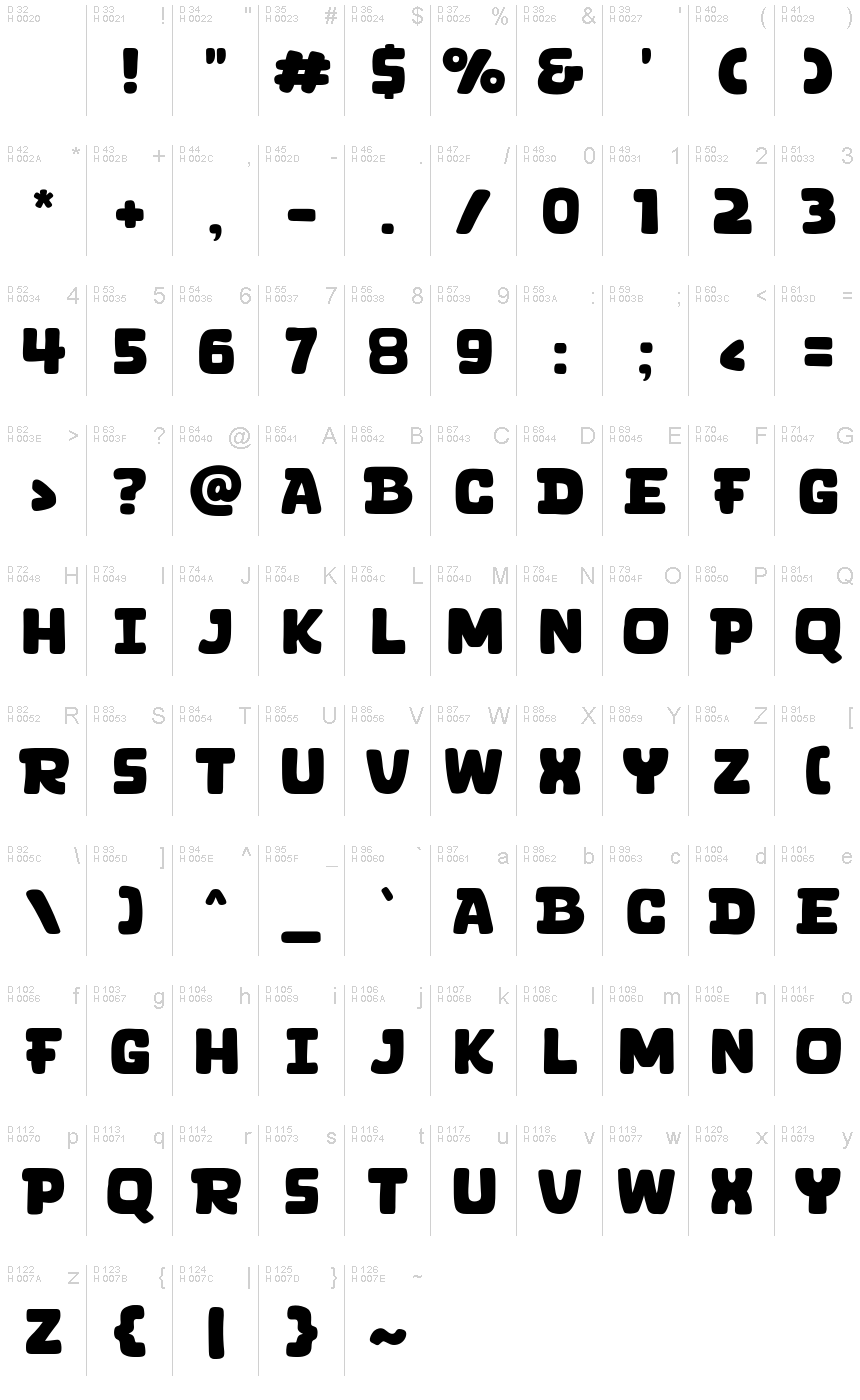
Brocats
Brocats, crafted by Khurasan, is a playful display font that dances with a cartoonish flair. Its bold strokes and expanded form exude confidence and friendliness, making it an inviting choice for any project seeking to add a touch of whimsy. The font's generous curves and soft terminals give it a bubbly personality that is as charming as it is impactful.
Perfect for children's books, party invitations, or any creative endeavor that aims to delight and engage, Brocats brings an element of fun to the table without sacrificing readability. Its sturdy presence also makes it suitable for bold headlines and branding that aim to stand out with a lighthearted touch.